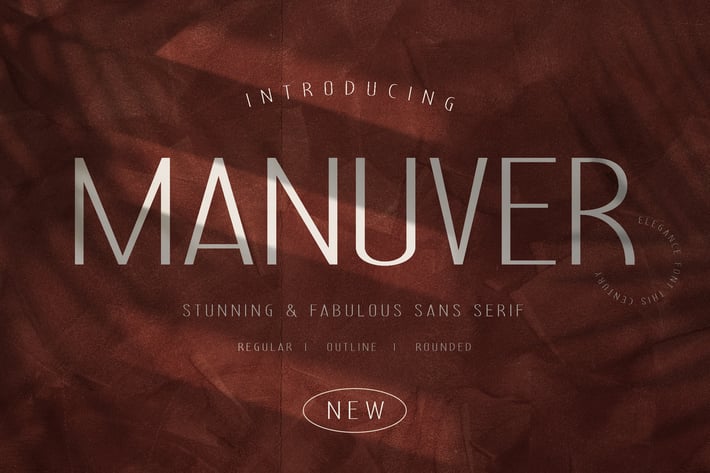
Manuver Social Media Font
Manuver is semi slim sans serif font. It can easily be matched to an incredibly large set of projects like logo, package, advertisement, magazine, , so add it to your creative ideas and notice how it makes them stand out!